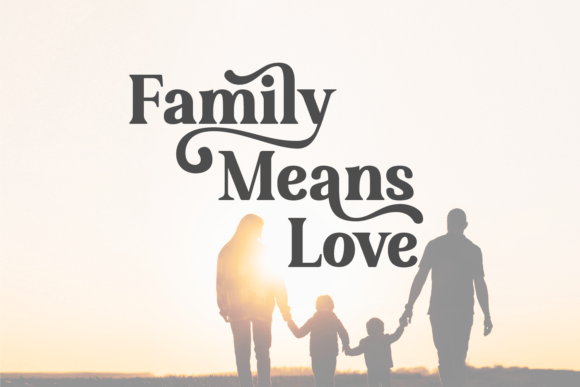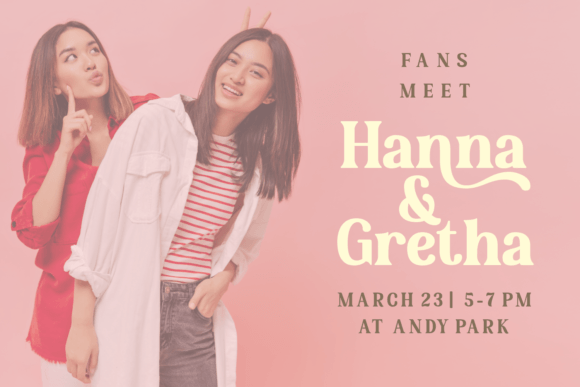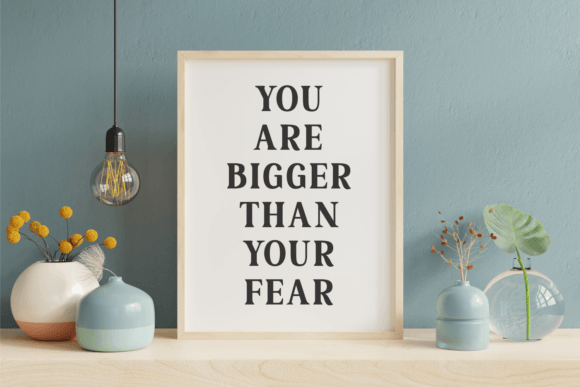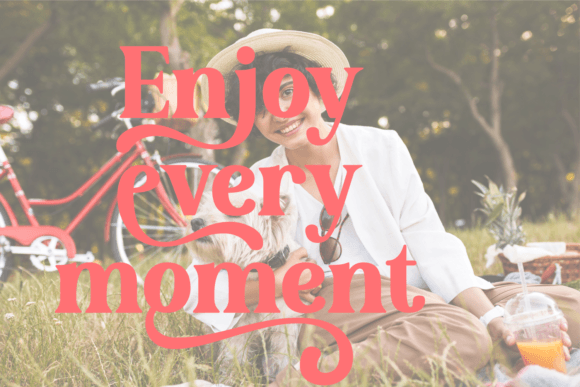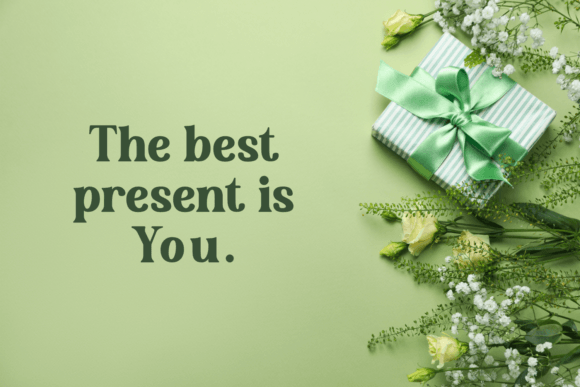
I still remember the frustration of working on a luxury brand project, searching for a font that exuded elegance and sophistication. The client wanted a high-end look, but every font I tried seemed to fall flat. That’s when I stumbled upon Caring Charity, a modern and elegant serif font that changed the game. In this article, I’ll share my experience with Caring Charity, its features, and how to make the most of it in your designs.
First Impressions: What I Love About Caring Charity
Caring Charity is a stunning serif font that boasts classic curves, refined serifs, and sharp details. Here are the things that I love about it:
- ✨ Timeless design: Caring Charity seamlessly blends traditional and modern elements, making it perfect for luxury brands, fashion labels, and high-end publications.
- ✅ PUA encoded: The font is PUA encoded, which means you can access all glyphs and swashes effortlessly, giving you more creative freedom.
- 💫 Elegant and refined: The font’s classic curves and refined serifs evoke a sense of sophistication and luxury, making it ideal for high-end designs.
The Not-So-Perfect: Small Quirks and Limitations
While Caring Charity is an excellent font, it’s not without its quirks:
- 🤔 Learning curve: With so many glyphs and swashes available, it may take some time to get familiar with the font’s features and how to access them.
Caring Charity is an OpenType font that offers advanced typographic features, including glyphs, swashes, and stylistic alternates. Here’s how to access these features:
The Story Behind Caring Charity
Caring Charity was designed by a team of typographers who wanted to create a font that blended traditional and modern elements. The font was inspired by classic serif fonts, but with a modern twist. The designers aimed to create a font that was both elegant and refined, yet approachable and versatile.
| What is Caring Charity? | Caring Charity is a modern and elegant serif font that blends timeless design with contemporary flair. |
| Is Caring Charity PUA encoded? | Yes, Caring Charity is PUA encoded, which means you can access all glyphs and swashes effortlessly. |